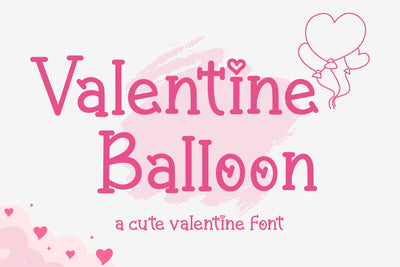
Valentine Balloon
Introducing our Valentine Balloon handwritten font, the perfect choice for love-filled creations! From DIY projects to social media posts and lovely merchandise, this font captures the spirit of romance and creativity. Its playful yet elegant design will make every creation stand out. Start spreading the love today!
Valentine Balloon Features :
- (a-z) titling, (a-z) swashes, ligatures
- Support multilingual; ä ö ü Ä Ö Ü ß ¿ ¡